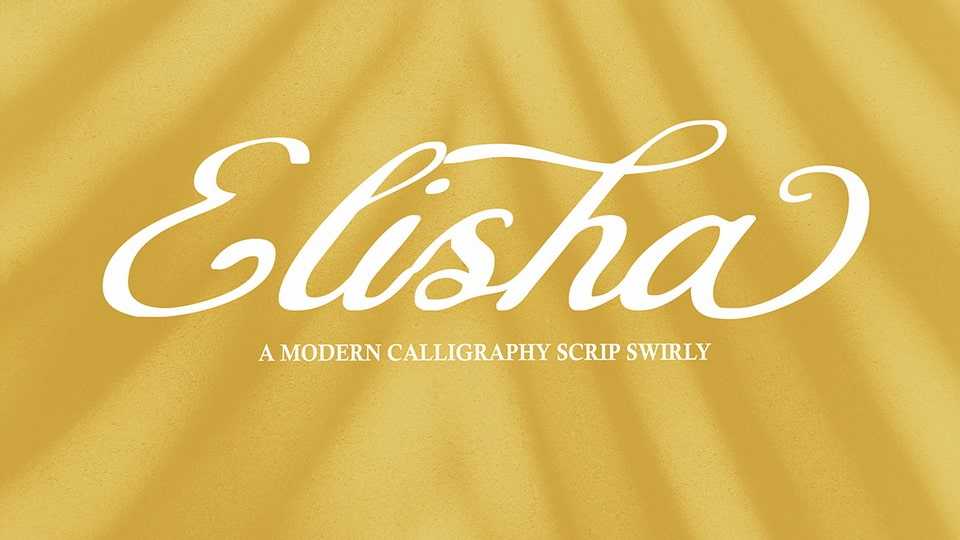
Download Elisha Script font, a script style that comes with a great character. Ideal for logos, name tags, handwritten quotes, product packaging, merchandise, social media and greeting cards.